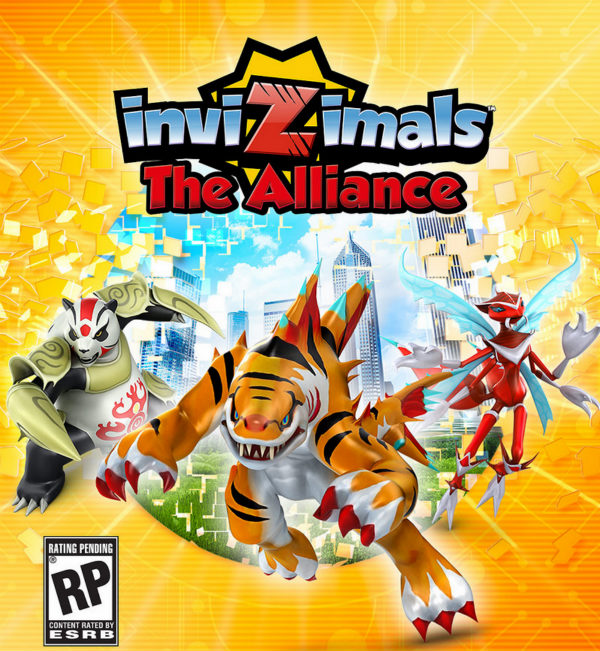
Invizimals: The Alliance Font
Grobold, a cartoonish sans serif font designed by Guy Buhry, is used for the Invizimals: The Alliance logo. The font is available for free download in the Fonts Used Section.